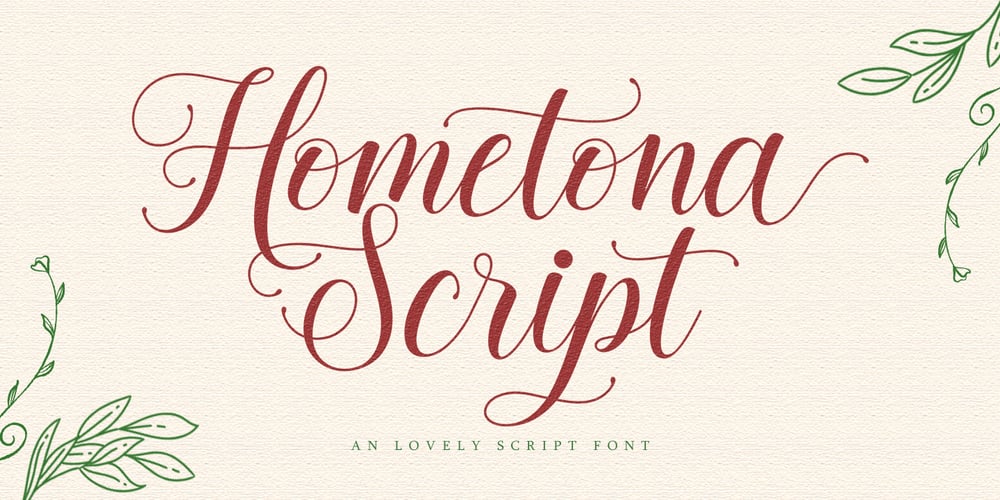
Hometona Script Font Family was designed by Samsul Kamal and published by Lettersams. Hometona Script contains 1 styles and family package options. Hometona Script is an lovely script font that features alternative styles and ligatures that are very eye-catching and is perfect for branding, wedding invitations, and other romantic projects.To activate the OpenType Stylistic alternative, you support programs that support OpenType features such as Adobe Illustrator CS, Adobe Indesign & CorelDraw X6-X7, Microsoft Word 2010 or later. All the features and special characters of this font are included in one file.If you need help or have any questions please let me know or send an email “lettersams@gmail.com” I’m happy to help 🙂 Thanks & Happy Designing!